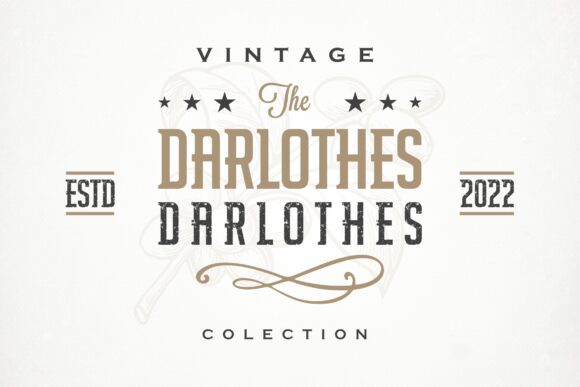
Darlothes Grunge
Darlothes Grunge font, designed by Albert Kalingga, embodies a captivating blend of retro charm and gritty appeal. Its unique eroded style stands out with a striking condensed structure that allows for impactful design without sacrificing clarity. The characters resonate with a vintage aesthetic, imparting an evocative sense of nostalgia while maintaining modern relevance.
Visually engaging and bold, Darlothes Grunge thrives in contexts where personality is essential—think band posters, edgy branding, or urban-themed artwork. Its distinctive character makes it the perfect choice for projects striving to evoke an atmospheric or rebellious spirit. Use this font to transform your designs into compelling narratives that draw the eye and ignite imagination.